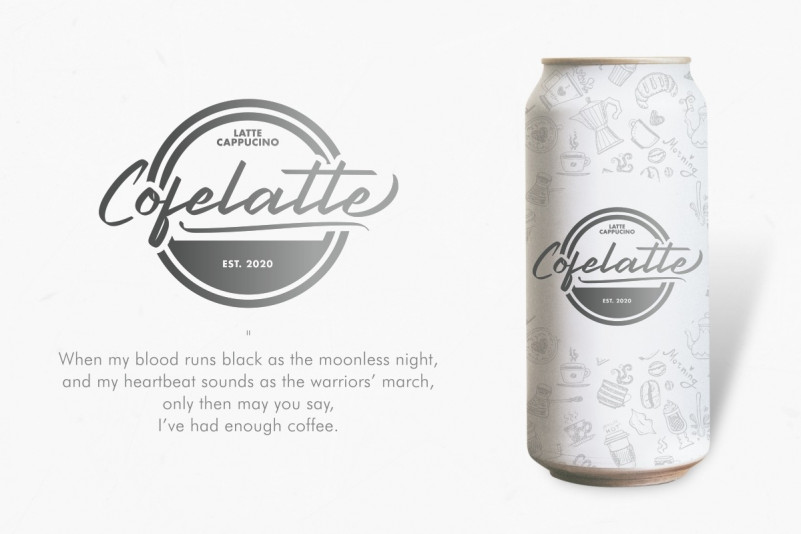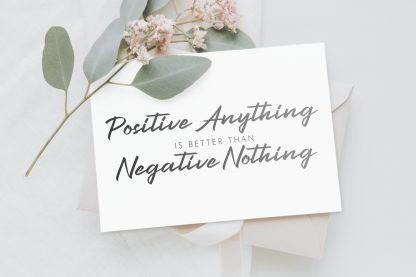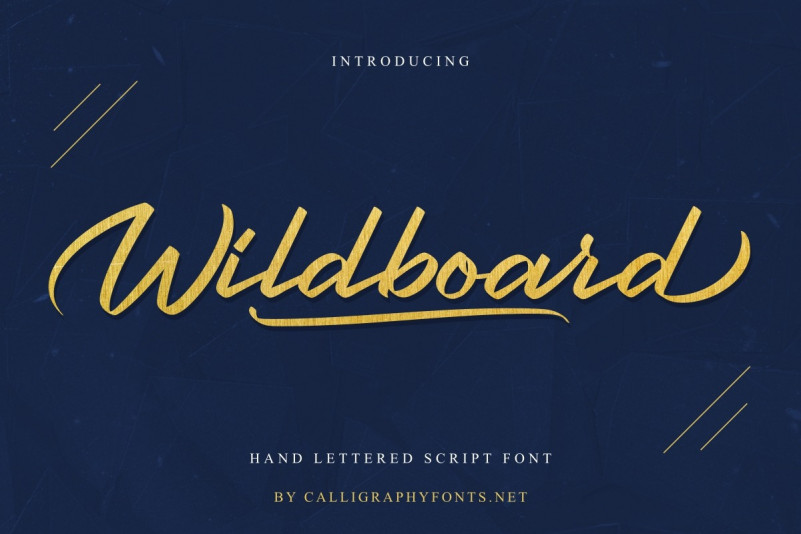
Wildboard Script Font
Wildboard is an exclusive handmade brush calligraphy font. The style of this font are stylish, classic, elegant, luxury and strong brush font.